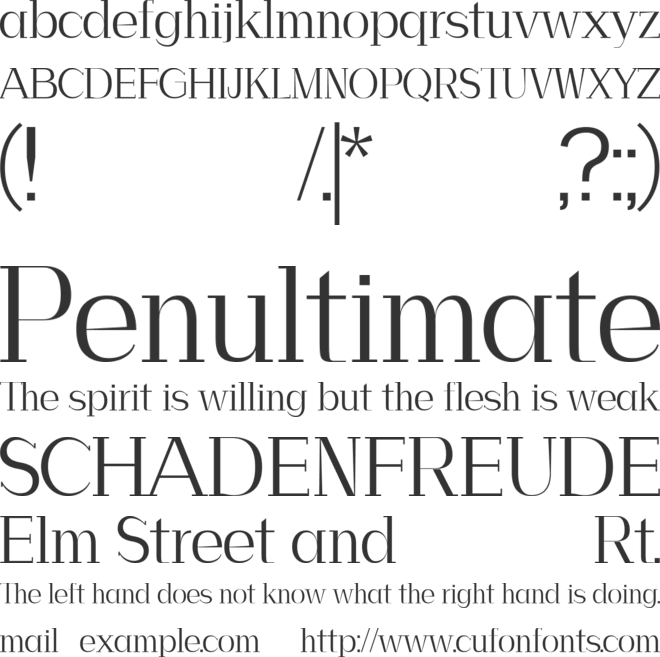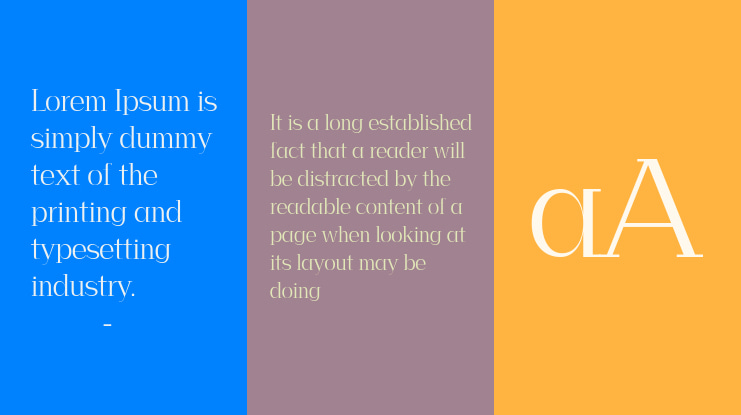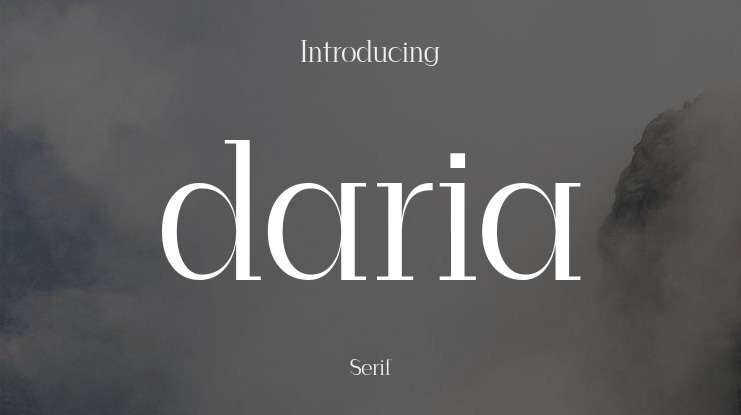
daria Font Family
🎨 Font Name: Daria by Minimalist Art Studio
🎨 Font Description: Daria is a refined slab serif with over 600 glyphs, blending editorial elegance and multilingual versatility for timeless design.
βœ” Complete Latin set + multilingual diacritics
βœ” Alternates, stylistic sets & ligatures
βœ” Numbers, small caps, and extended punctuation
βœ” Bonus italics and family styles